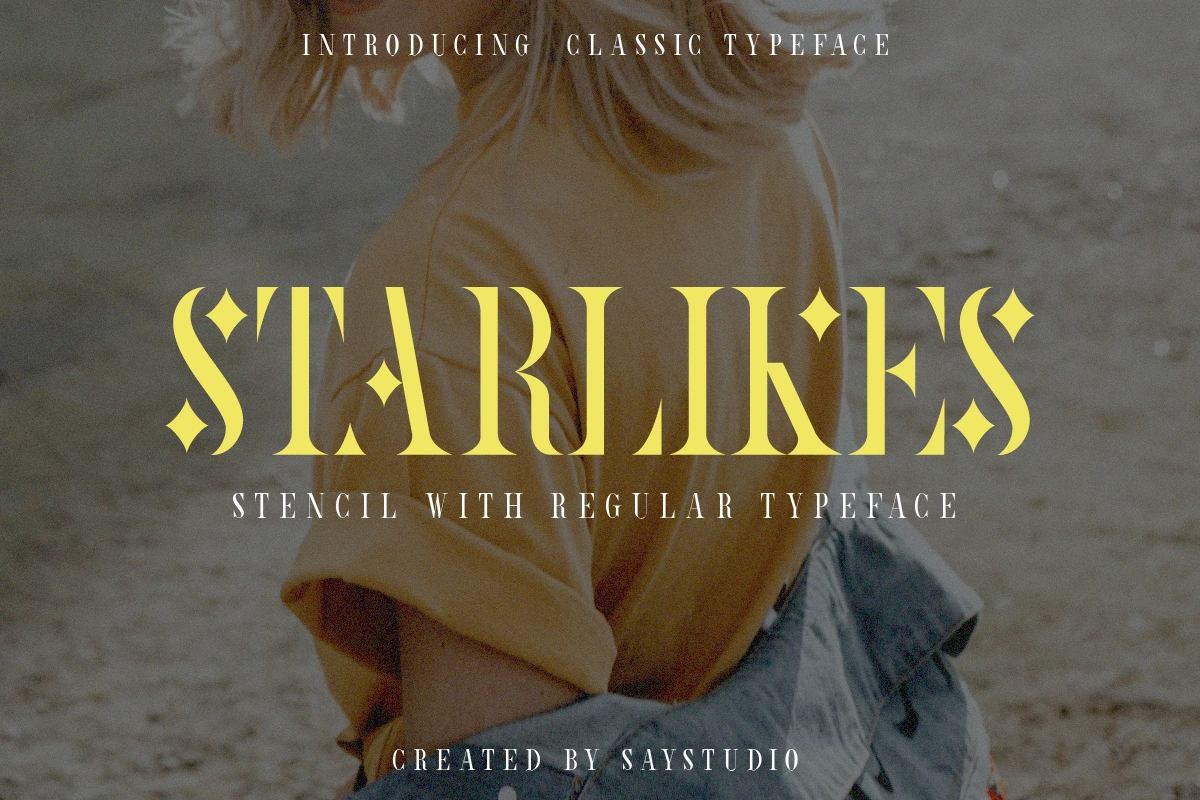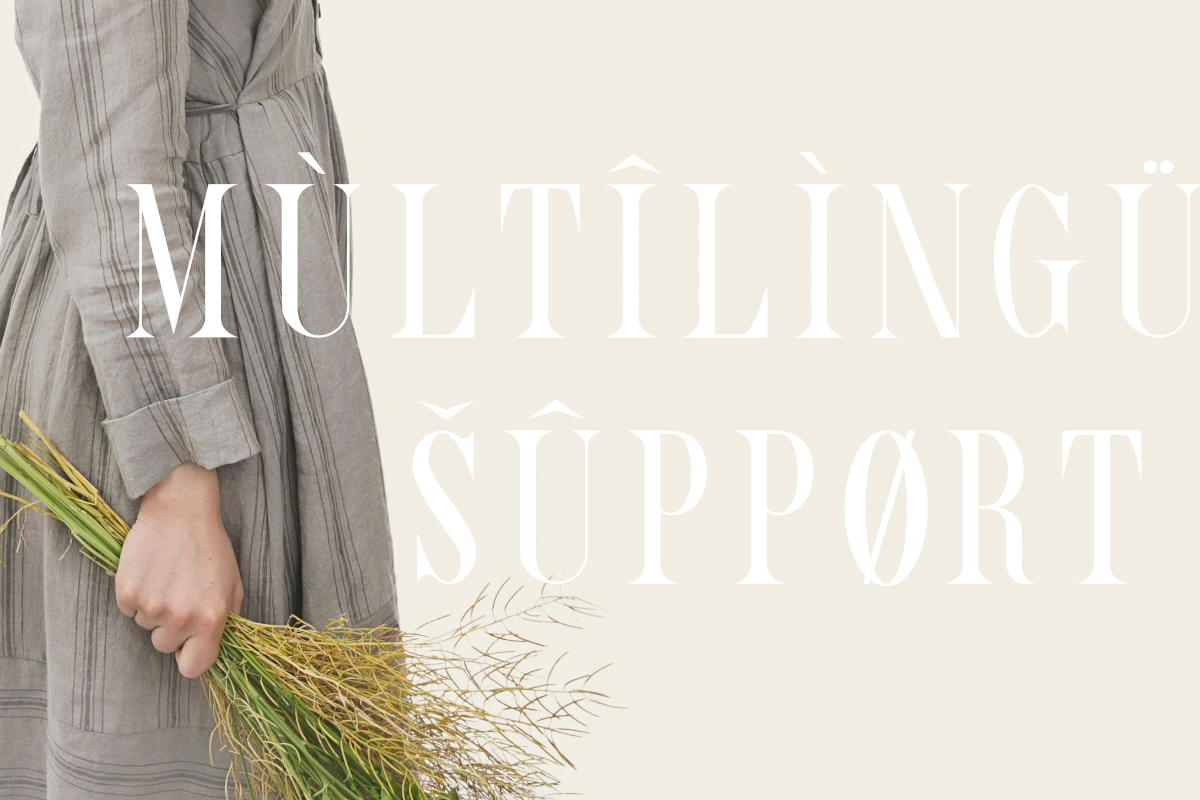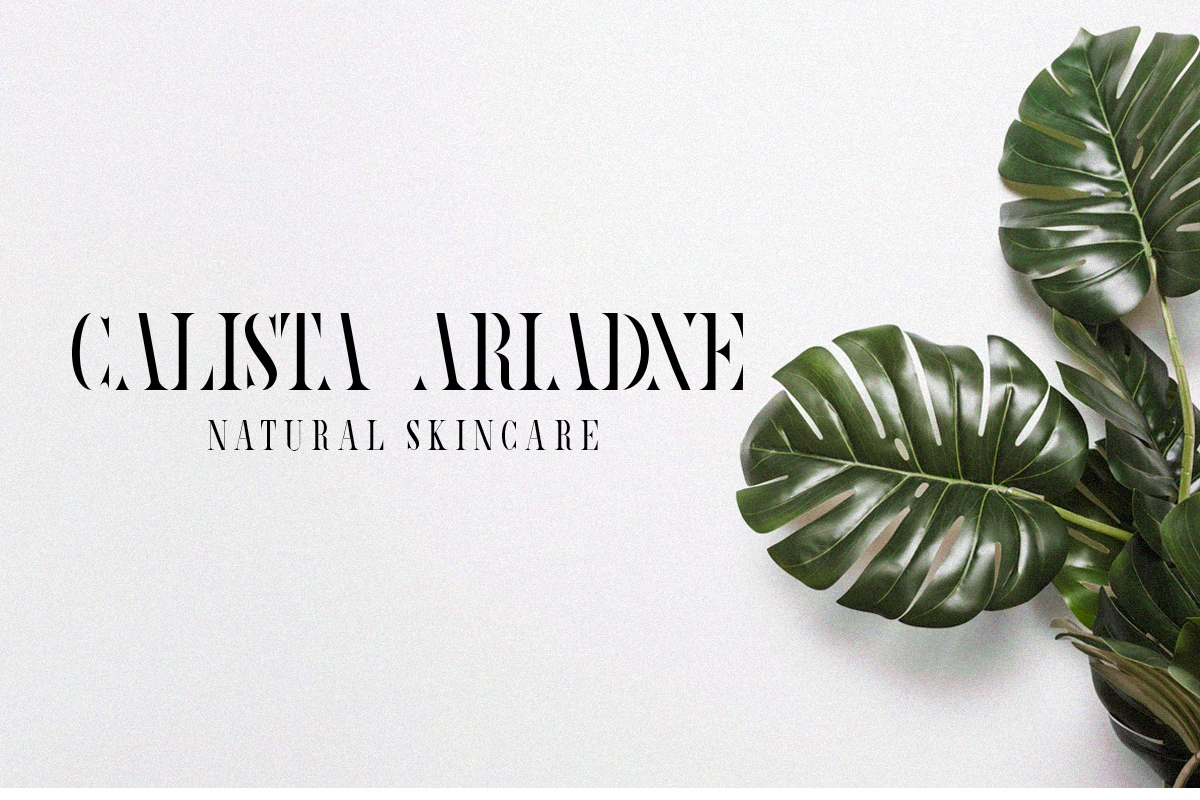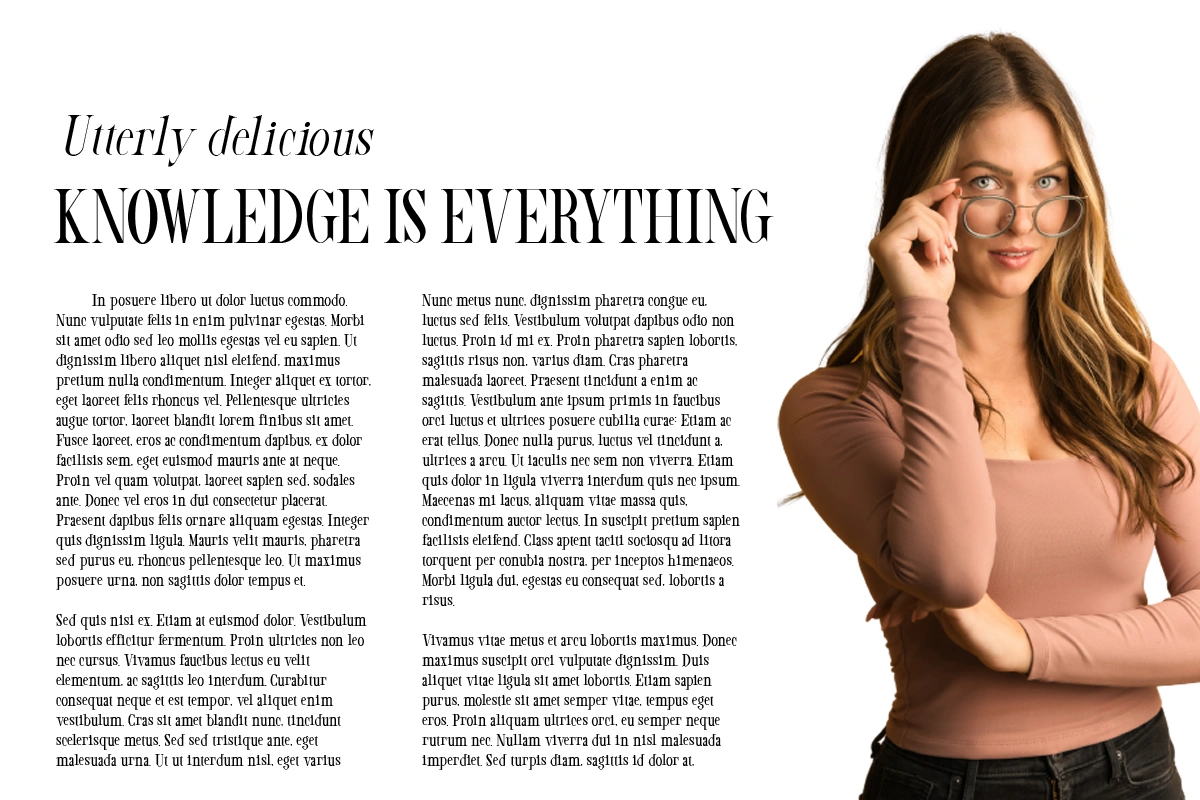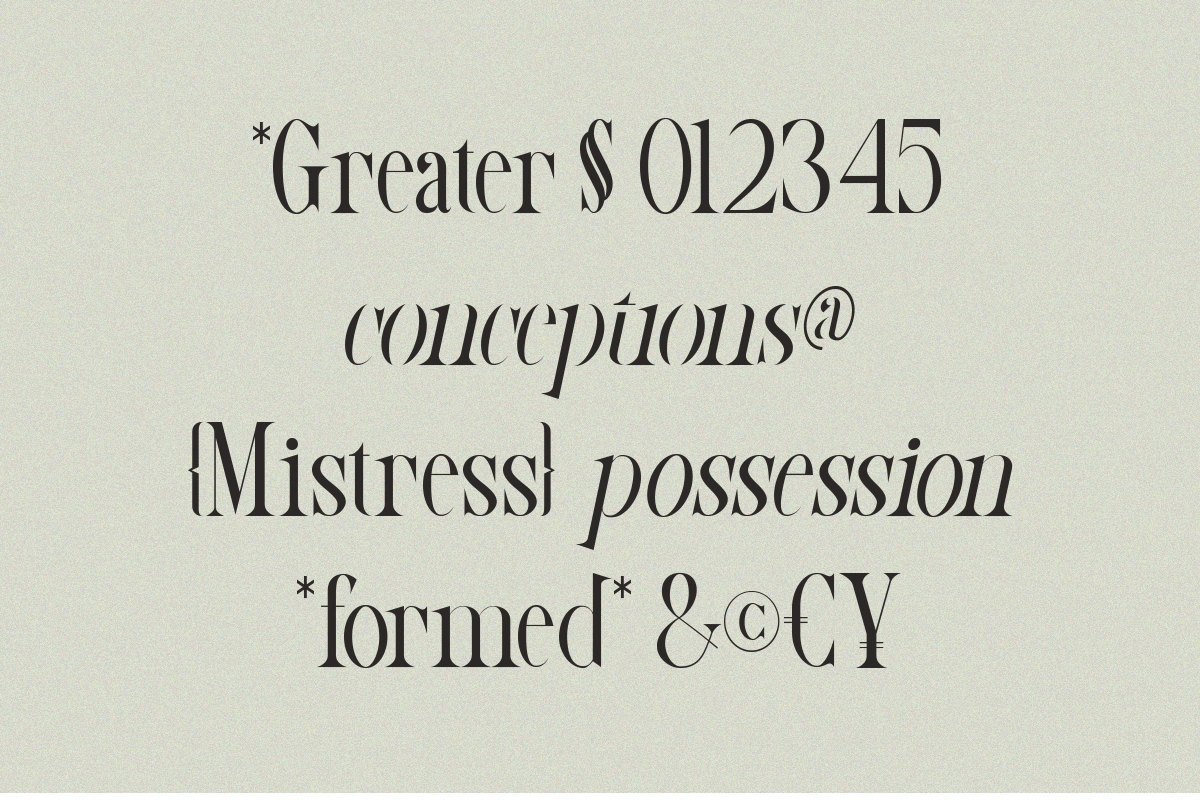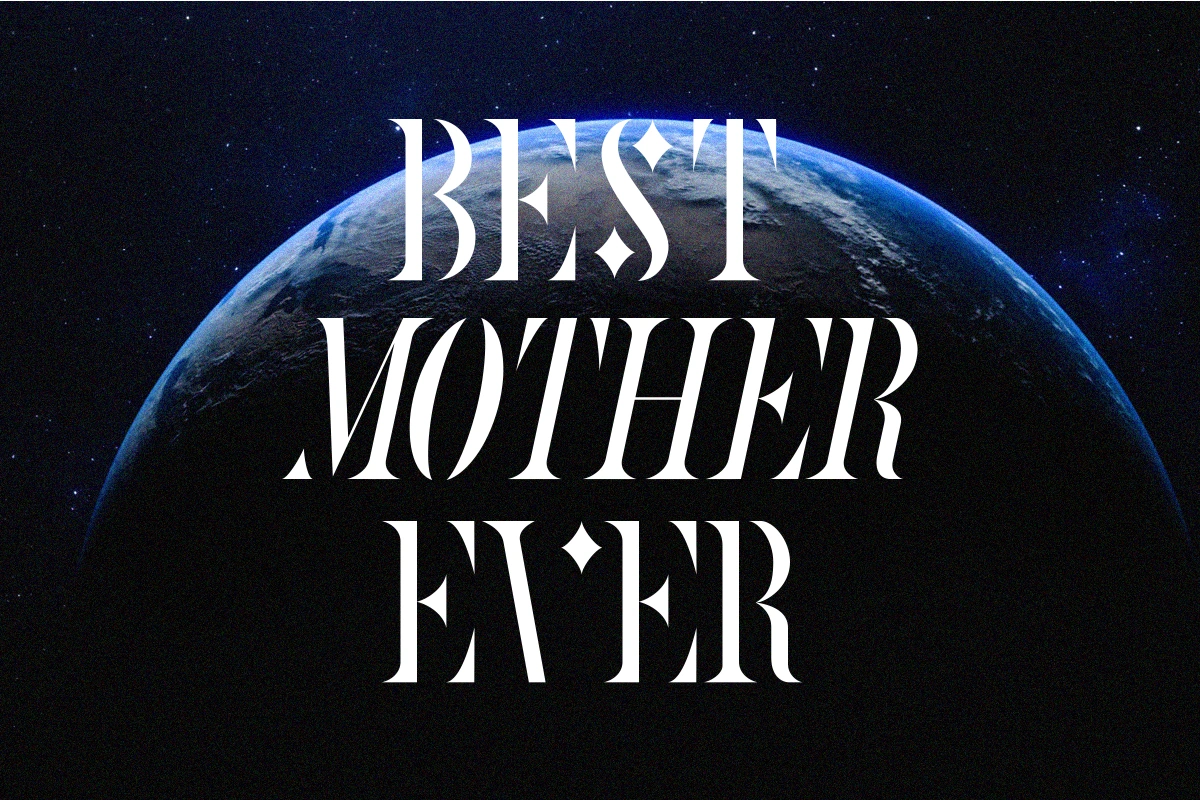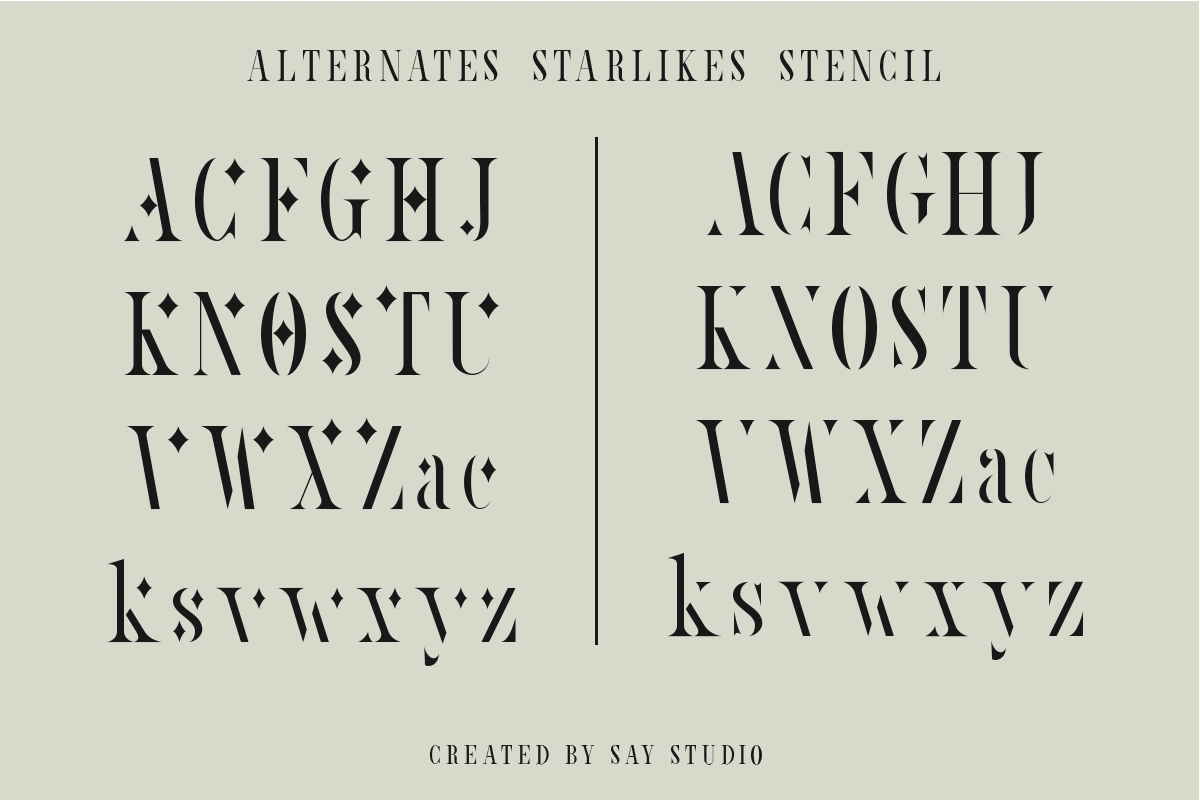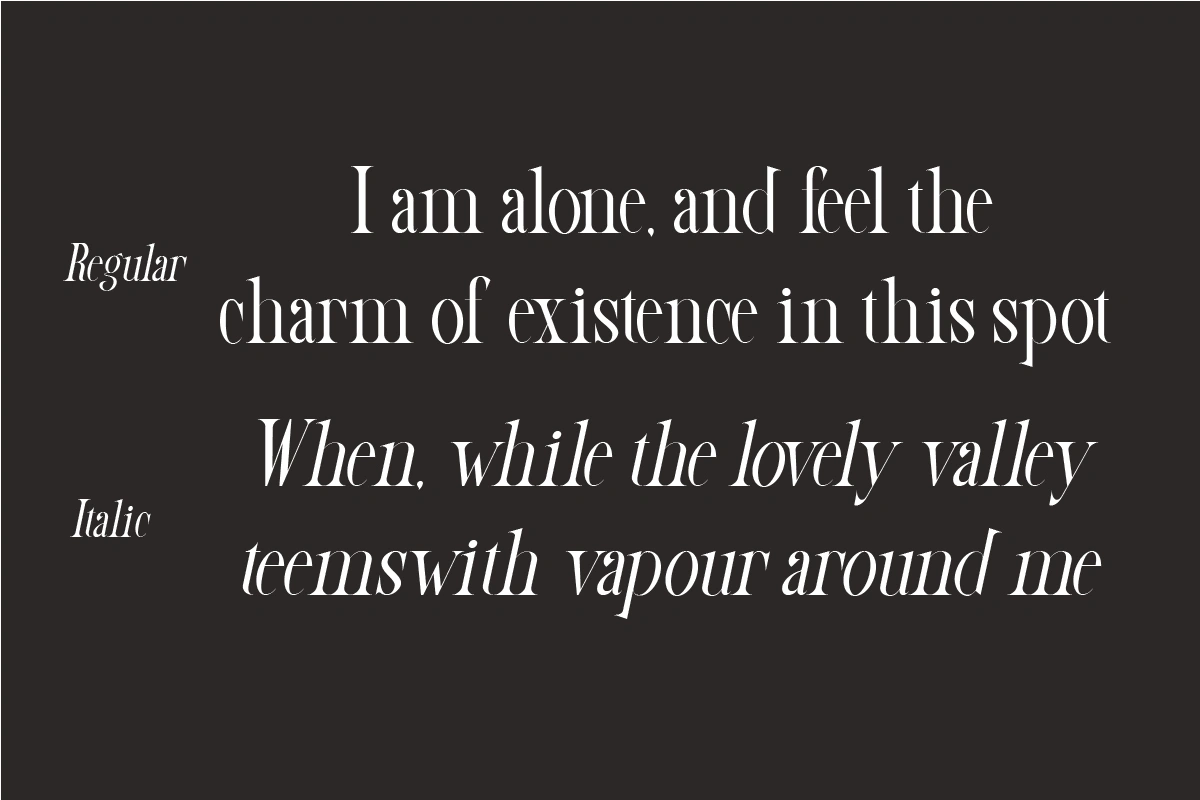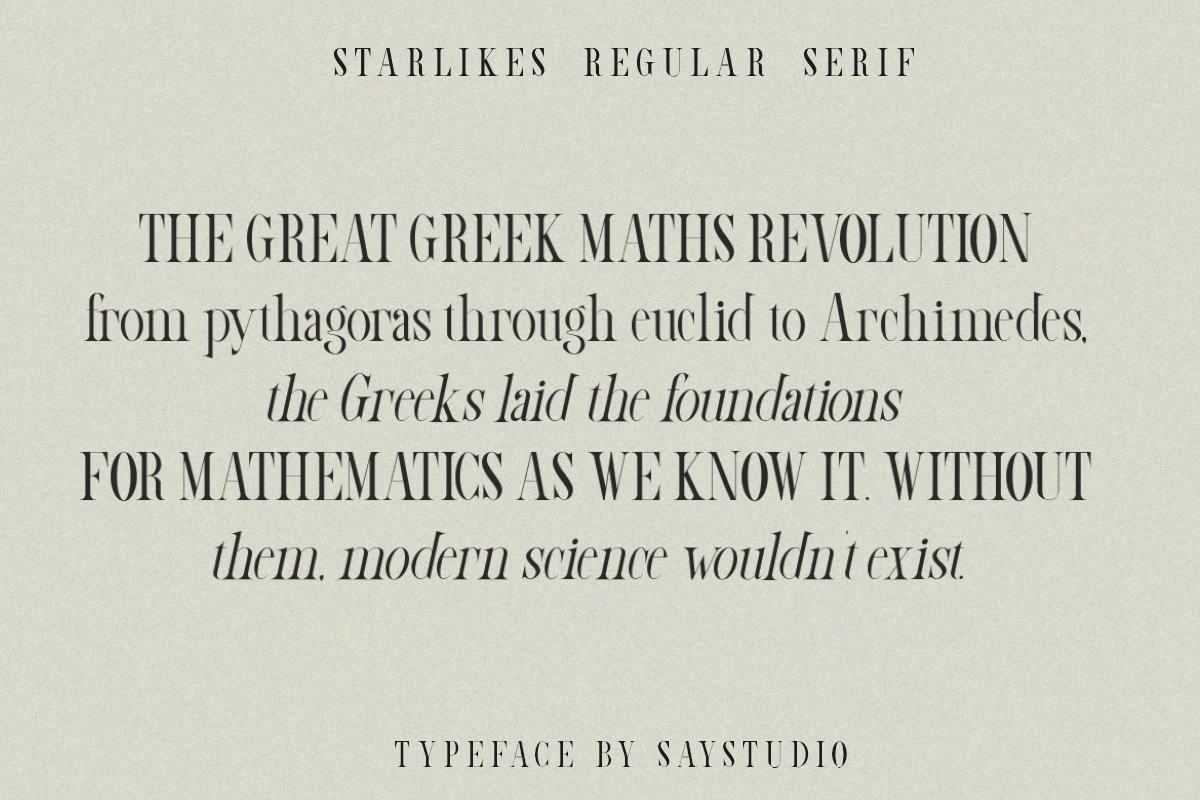
Starlikes – Serif Typeface Font
Starlikes - classic duo typeface with stencil serif and regular typeface, which can be adapted to your needs and desires Starlikes is a beautiful, nostalgic lowercase and uppercase typeface that works best as focus display text (think logos, headers, pretty quotes, calls to action, etc.) think logos, headers, pretty quotes, calls to action, etc.). Upper and lower case give it great versatility, but I honestly can't get over all the crumpled uppercase letters. This is too good. Including: - Stencil Starlikes (capital & lowercase) - Starlikes Stencil Italic (capital & lowercase) - Starlikes Regular (uppercase & lowercase) - Starlikes Regular Italic (uppercase & lowercase) - Numbers & punctuation - Foreign language support Have a wonderful day SayStudio :-)